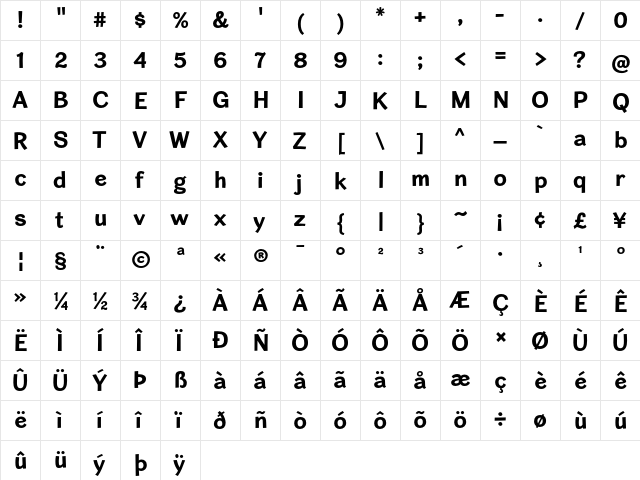
Cardigan Bold
Design Context for Cardigan Typeface
Cardigan is a composed and adaptable typeface that performs quietly and consistently across a wide range of design contexts. Its bold stroke weight gives it real presence on the page.
Pro Tip: Use Cardigan in both headline and body roles to test its range before committing to a single application.